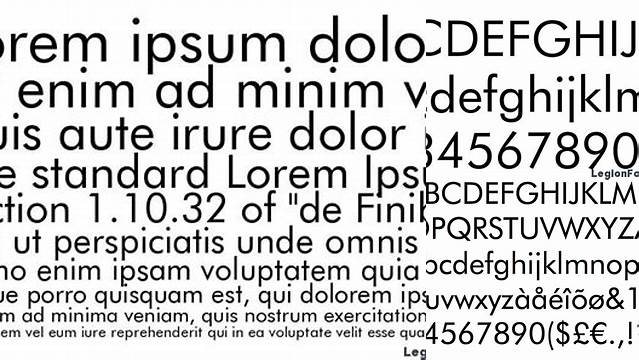
Futura BT Book Font is a classic and timeless typeface that has been widely used in various design applications for decades. Its clean lines, geometric shapes, and balanced proportions make it a versatile choice for both print and digital media. In this comprehensive guide, we'll delve into the history, characteristics, and applications of Futura BT Book Font, as well as provide information on where you can download it for free and legally. Whether you're a seasoned designer or just starting out, understanding Futura BT Book Font can significantly enhance your typographic skills and broaden your design palette. So, let's dive in and explore the world of this iconic typeface!
When we talk about Futura BT Book, we're not just talking about a font; we're talking about a piece of design history. This typeface, with its roots in the Bauhaus movement, embodies a philosophy of simplicity and functionality. Imagine a world where fonts weren't just letters, but rather, architectural structures on paper. That's the essence of Futura. Its creation was a response to the ornate and sometimes cluttered typefaces that preceded it, a breath of fresh air in the design world. The beauty of Futura lies in its geometric precision. Each character is meticulously crafted, like a building block, contributing to an overall sense of harmony and balance. This isn't just a font you use; it's a font you feel. The clean lines and minimalist approach make it incredibly versatile. Think about the possibilities! From crafting elegant logos that whisper sophistication to designing body text that invites the reader in, Futura is your trusty companion. But it's not just about aesthetics. Futura's legibility is paramount. In the realm of typography, where readability reigns supreme, Futura shines. Its clear, uncluttered forms ensure that your message is delivered with clarity and impact, whether it's on a billboard or a business card. So, when you choose Futura, you're not just choosing a font; you're choosing a legacy. You're choosing a typeface that has stood the test of time and continues to inspire designers around the globe. It's a testament to the power of clean design and a reminder that sometimes, less truly is more.
To truly appreciate Futura BT Book Font, itβs essential to understand its historical context. Created by German type designer Paul Renner in 1927, Futura was a product of the New Frankfurt project, which aimed to revolutionize urban living through modern design. Renner, influenced by the Bauhaus movement's emphasis on functionality and geometric forms, sought to create a typeface that reflected the spirit of the new era. Futura's design was a radical departure from the ornate, calligraphic typefaces that were popular at the time. Its simple, geometric shapes were based on the circle, square, and triangle, giving it a clean and modern appearance. This design philosophy aligned perfectly with the Bauhaus ideals of simplicity, functionality, and mass production. The font quickly gained popularity and became a symbol of modernity in the 20th century. Its influence can be seen in countless designs, from corporate logos to editorial layouts. Futura's enduring appeal lies in its timeless quality and its ability to convey a sense of elegance and efficiency. Its historical significance is not just in its aesthetic appeal, but also in its philosophical underpinnings. It represents a shift in design thinking, a move towards clarity and functionality, and a rejection of unnecessary ornamentation. This makes Futura more than just a typeface; it's a statement of design principles.
Delving deeper into the historical narrative of Futura, we find a typeface intertwined with the very fabric of 20th-century design and culture. Paul Renner's vision wasn't just about creating a font; it was about crafting a visual language for a new age. The Bauhaus movement, with its emphasis on form following function, provided the fertile ground for Futura's creation. Imagine the design landscape of the 1920s β a world transitioning from the ornate flourishes of Art Nouveau to the streamlined aesthetics of modernism. Futura emerged as a beacon of this new era, its geometric precision a stark contrast to the decorative styles of the past. The font's impact was immediate and far-reaching. From advertising campaigns to architectural signage, Futura became synonymous with progress and innovation. Its clean lines and balanced proportions conveyed a sense of efficiency and clarity, perfectly aligning with the aspirations of a rapidly modernizing world. Think about the brands that embraced Futura β they weren't just choosing a font; they were aligning themselves with a design philosophy. This typeface became a symbol of forward-thinking companies and institutions, a visual shorthand for modernity and sophistication. But Futura's story isn't just about commercial success; it's also about artistic expression. Designers and artists alike were drawn to its versatility, using it to create everything from minimalist posters to avant-garde publications. The font's inherent elegance made it a favorite for conveying messages of importance, whether in print or on screen. So, when we look at Futura today, we're not just seeing a typeface; we're seeing a reflection of the 20th century. We're seeing a design that has shaped the way we communicate and a font that continues to inspire new generations of creatives.
Futura BT Book Font is renowned for its distinctive characteristics that set it apart from other typefaces. The most notable feature is its geometric construction. The letterforms are based on simple shapes like circles, squares, and triangles, resulting in a clean, modern, and almost architectural appearance. This geometric purity gives Futura a sense of balance and harmony, making it visually appealing and easy to read. Another key characteristic is its consistent stroke weight. Unlike some fonts that have varying thicknesses in their strokes, Futura maintains a uniform stroke weight throughout, contributing to its clarity and legibility. This consistency is particularly important in body text, where readability is paramount. Futura also has a relatively high x-height, which refers to the height of the lowercase letters relative to the uppercase letters. This high x-height enhances readability, especially in smaller sizes. The typeface's open counters, which are the enclosed spaces within letters like